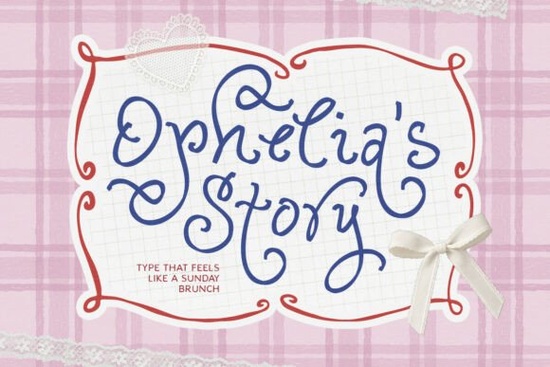
If you're looking for a script font that feels like a warm cup of tea on a quiet morning, Ophelia’s Story might be just what your project needs. It’s not just another handwritten-style typeface it carries a gentle rhythm, like someone doodling in the margins of a journal with no rush. The flowing lines and soft curves give it a cozy, personal vibe, perfect for designs that want to feel intimate and thoughtful.
What makes Ophelia’s Story special?
Unlike many script fonts that lean too formal or overly dramatic, this one walks the line between playful and refined. Its monoline structure keeps things clean, while the looping swashes add just enough motion to make it feel alive. Think of it as the handwriting of someone who writes letters to friends, sipping coffee and remembering small joys.
The font works well across different styles: from rustic café menus to delicate wedding invites, from dreamy Instagram posts to book covers that whisper romance. It’s especially strong in projects where tone matters more than boldness when you want your design to feel like a shared secret rather than a loud announcement.
Where can you use Ophelia’s Story?
- Boutique stationery – Ideal for handmade cards, gift tags, and planners with a soft, personal touch.
- Branding for indie cafés – Adds warmth to signage, packaging, and social media graphics.
- Romantic book covers – Perfect for stories with emotional depth or gentle storytelling.
- Social media headers – Creates a “soft-and-dreamy” look that stands out without overwhelming.
It’s also great for print-on-demand sellers who want to offer unique, handcrafted-feeling designs without needing to draw every letter themselves.
How does it compare to other script fonts?
While similar in spirit to fonts like High Rise, Night Train, and OneLiner, Ophelia’s Story leans more into nostalgia and comfort. Where High Rise has a modern edge and Night Train brings moody elegance, Ophelia’s Story feels like a memory of a slower time one where mornings were unhurried and thoughts wandered freely.
If you love the whimsical charm of Easter Bundle but want something more versatile year-round, this is a natural next step. And if you’re drawn to travel-themed designs with a personal touch, Wishlist Travel shares some of the same dreamy energy, though Ophelia’s Story has a quieter, more introspective mood.
Is it easy to use?
Yes especially if you're using it in tools like Canva, Adobe Illustrator, or Photoshop. The font supports multiple weights (if available), and its consistent stroke width makes it predictable across different sizes. You don’t need advanced typography skills to make it look good.
Just remember: because of its flowing nature, it works best at medium to large sizes. On smaller text, the details might get lost. Use it for headlines, quotes, or titles, and let it shine where it belongs.
Final thoughts
Ophelia’s Story isn’t about being flashy. It’s about feeling real. Whether you’re designing for yourself or for clients who value authenticity, this font helps you express warmth, care, and quiet confidence.
It’s not a one-size-fits-all solution, but for the right kind of project? It’s a match made in digital ink.
- Try pairing it with a simple sans-serif for balance.
- Use it in combination with pastel or muted color palettes.
- Test how it looks in both light and dark backgrounds.